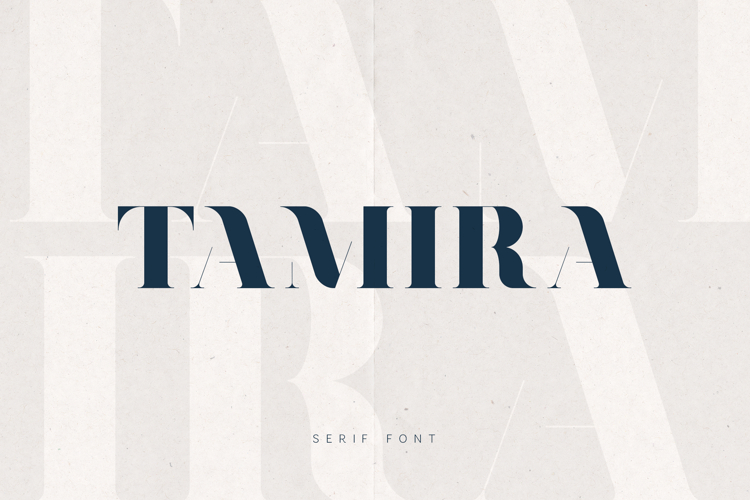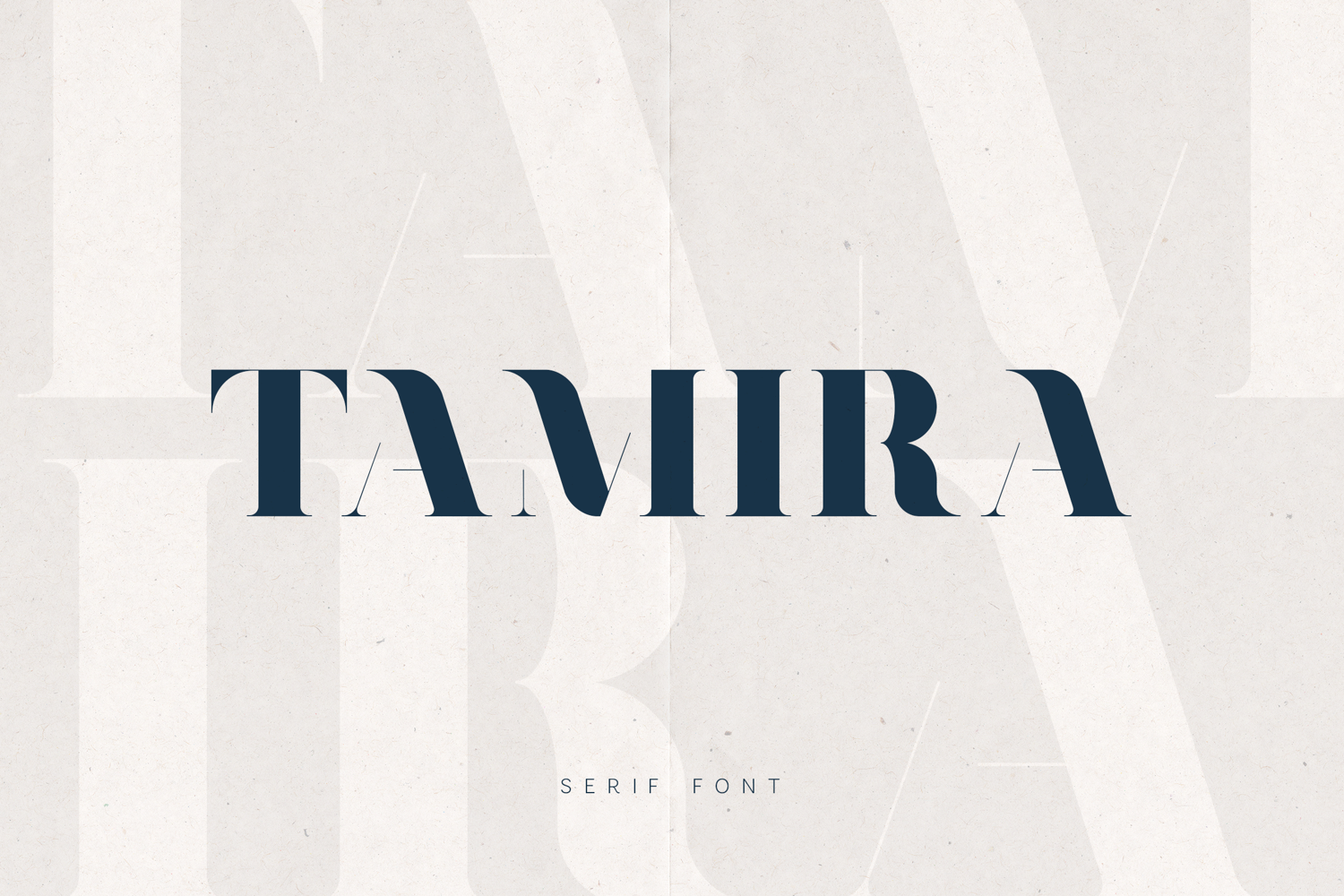
Tamira Modern Serif Elegant High Contrast Display
Tamira is a modern high-contrast serif display font designed to bring elegance, sophistication, and artistic character to your work. With its refined curves, sharp transitions, and distinctive letterforms, it delivers a luxurious editorial feel while maintaining a contemporary edge.
Inspired by fashion magazines and high-end branding, Tamira is perfect for designers seeking a bold yet graceful typographic statement. Its balanced structure and expressive details make it ideal for both minimal and artistic compositions.
Whether used in logos, editorial layouts, or premium packaging, Tamira adds a timeless and stylish presence to any design.
✨ Perfect for• Luxury & fashion branding
• Editorial & magazine layouts
• Logo design
• Packaging & product design
• Wedding & event typography
• Social media & creative content
• High-contrast elegant shapes
• Unique serif details
• Clean editorial aesthetic